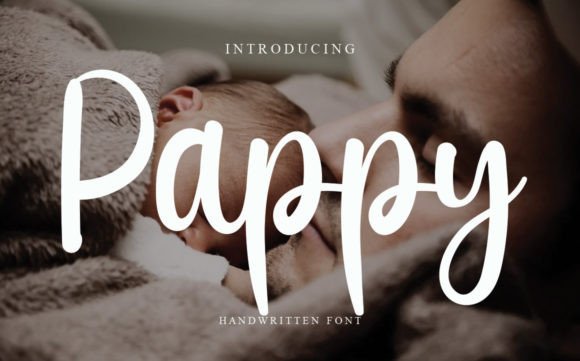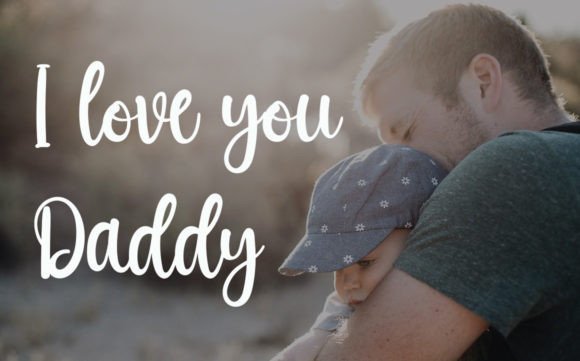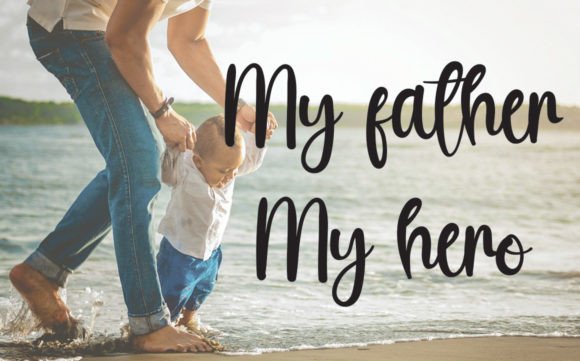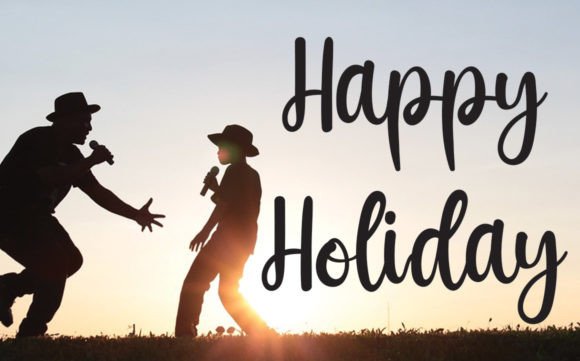
Pappy Font
About Pappy Font
**Pappy: An Enchanting Handwritten Font for Romantic Projects**
Pappy is a font that exudes enchantment, offering a handwritten style that’s versatile and perfect for a wide range of design applications. Whether you’re working on greeting cards, headlines, branding, posters, or any creative project, Pappy adds a touch of romance and charm to your work.
The charm of Pappy lies in its enchanting handwritten characters, meticulously crafted to convey a sense of authenticity and romanticism. Each letter is imbued with a unique and captivating touch that enhances your designs with an air of romance.
This font’s versatility ensures it can adapt to various design contexts. You can use it to create heartfelt greeting cards, add a romantic feel to headlines and branding materials, or infuse charm into posters and other creative endeavors.
In summary, Pappy is more than just a font; it’s a source of enchantment and romance that enhances your design projects. Its handwritten letters make it the perfect choice for infusing a sense of authenticity and romanticism into your work. With Pappy, your creative projects will shine with a distinct and enchanting charm. Choose Pappy, and let your designs captivate with their romantic and heartfelt presence.